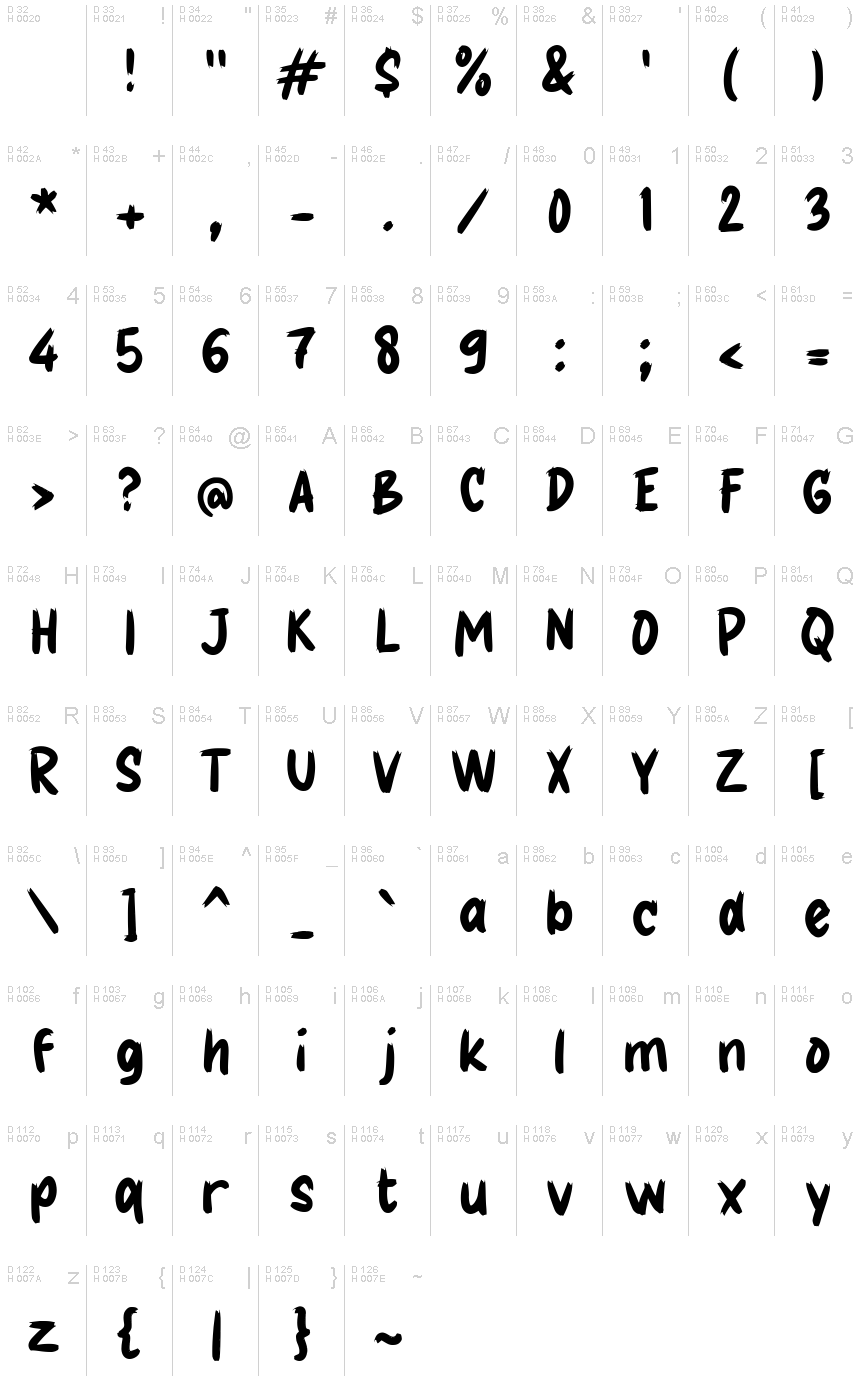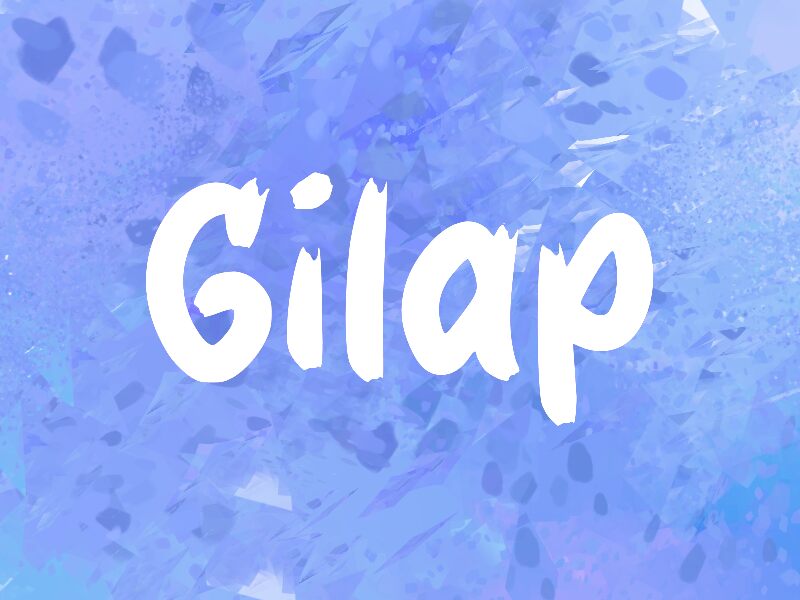
Gilap
Gilap, a captivating brush font created by the talented designer wep, exudes an effortless elegance and a touch of artistry. With its bold, expressive strokes and dynamic flow, this font immediately commands attention, instantly elevating any design it graces. The seamless fusion of organic, hand-drawn elements and a sturdy, confident presence makes Gilap a versatile choice that can seamlessly transition between modern, stylish branding, impactful headlines, and eye-catching editorial pieces.
The bold, brush-like aesthetic of Gilap lends itself to projects seeking a distinct, memorable identity. Its striking visual presence can be leveraged to create a powerful impact, making it an ideal selection for product packaging, event posters, and attention-grabbing social media content. Gilap's versatility extends further, as its unique character can also be harnessed to craft inviting typographic designs for personal stationery, wedding suites, and beyond.